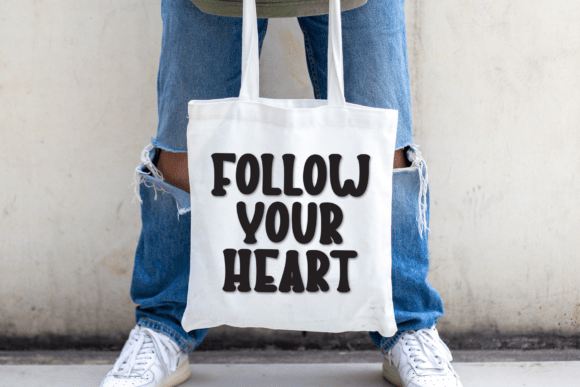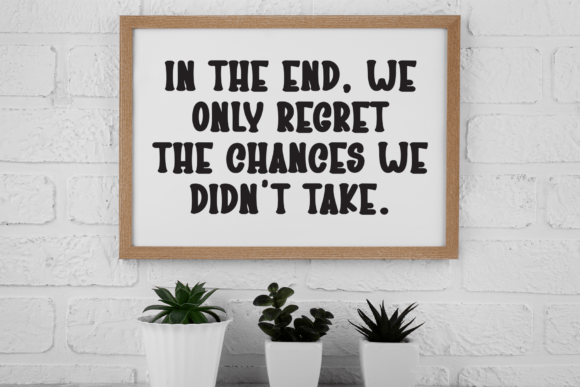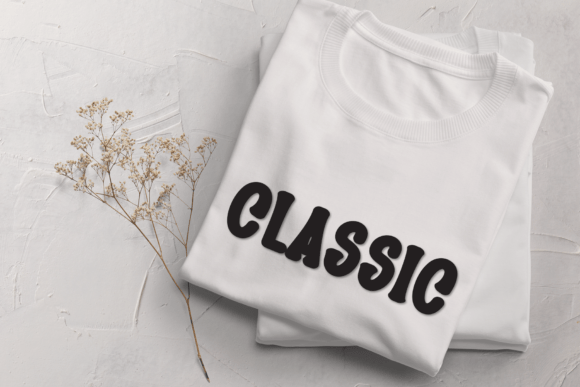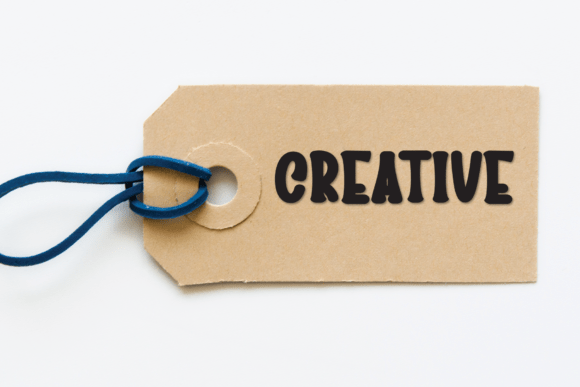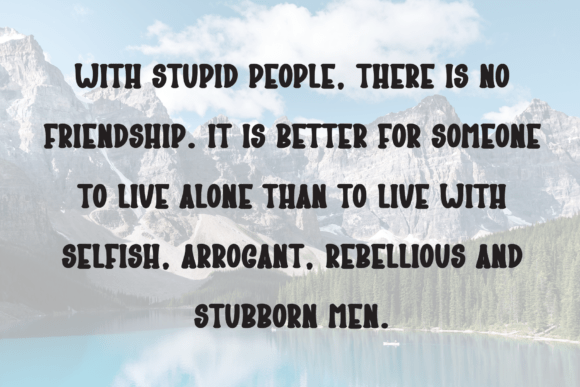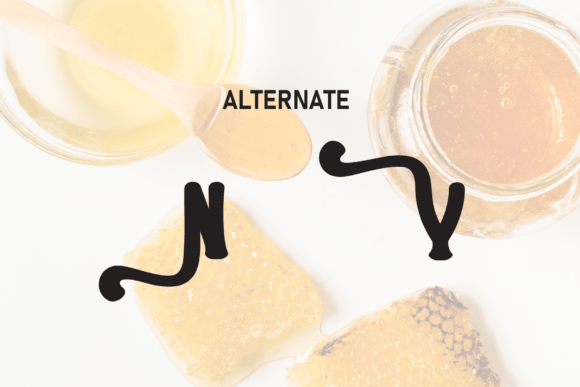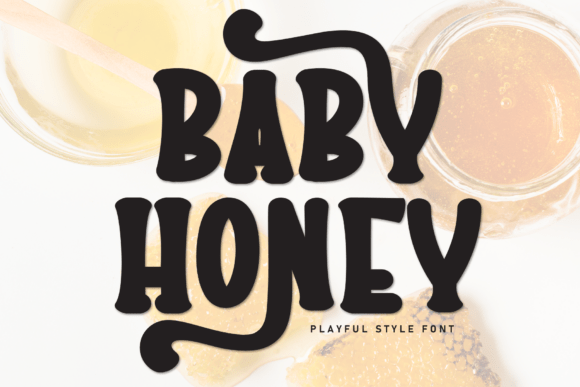
Baby Honey Font: Add a Touch of Sweetness to Your Creative Projects
Are you looking for a font that exudes warmth, playfulness, and personality? Look no further than the Baby Honey font! This bold and playful display font is perfect for designers and crafters who want to add a touch of sweetness to their creative projects. With its thick, rounded strokes and whimsical letterforms, Baby Honey delivers a friendly and fun aesthetic that works beautifully in a variety of applications.
Perfect for Branding, Packaging, and Designs
Baby Honey is a versatile font that can be used in a range of creative projects, from branding and product packaging to children’s designs, party invitations, and more. Its playful and charming design makes it ideal for businesses and individuals who want to create a fun and approachable visual identity. Whether you’re designing for a bakery, kids’ brand, or simply want a font with flair and charm, Baby Honey is the perfect choice.
Unique Features of Baby Honey Font
So, what sets Baby Honey apart from other fonts? Here are some of its unique features:
- Thick, Rounded Strokes: Baby Honey’s thick, rounded strokes give it a friendly and approachable feel, making it perfect for designs that require a playful touch.
- Whimsical Letterforms: The font’s whimsical letterforms add a touch of personality and charm to any design, making it stand out from the crowd.
- Decorative Swashes: Select characters feature decorative swashes that bring extra flair to your text, giving it a dynamic and custom look.
- Multilingual Support: Baby Honey includes extended multilingual support, making it a practical choice for designers who work with clients from around the world.
- Uppercase and Lowercase Letters: The font includes both uppercase and lowercase letters, giving you flexibility and creative freedom.
- Numerals and Punctuation: You’ll also receive numerals and punctuation, making it easy to create complete and professional-looking designs.
- Extended Multilingual Support: The font includes extended multilingual support, ensuring that you can use it for projects that require non-English characters.
Why Choose Baby Honey Font?
So, why should you choose Baby Honey font for your creative projects? Here are just a few reasons:
- Unique and Eye-Catching: Baby Honey is a unique and eye-catching font that will help your designs stand out from the crowd.
- Playful and Friendly: The font’s playful and friendly aesthetic makes it perfect for designs that require a touch of warmth and personality.
- Versatile: Baby Honey is a versatile font that can be used in a range of creative projects, from branding and packaging to children’s designs and party invitations.